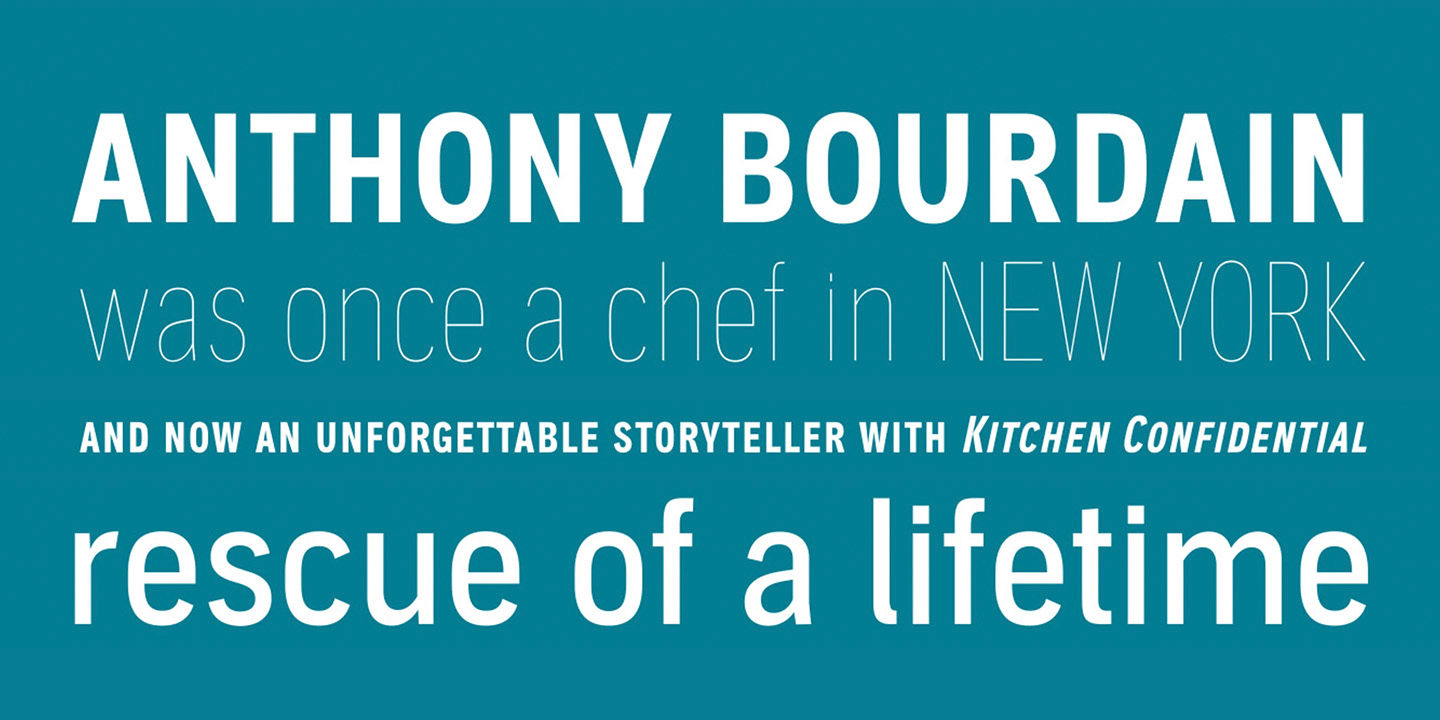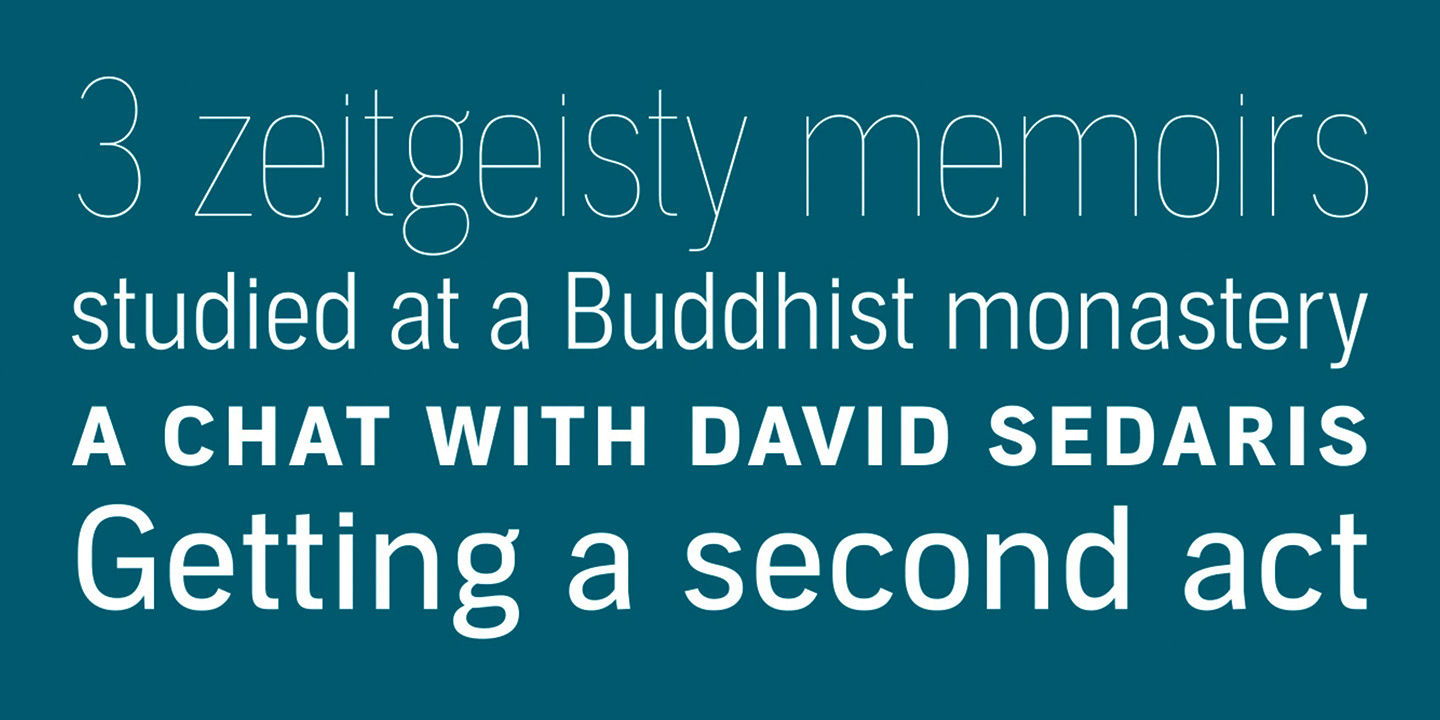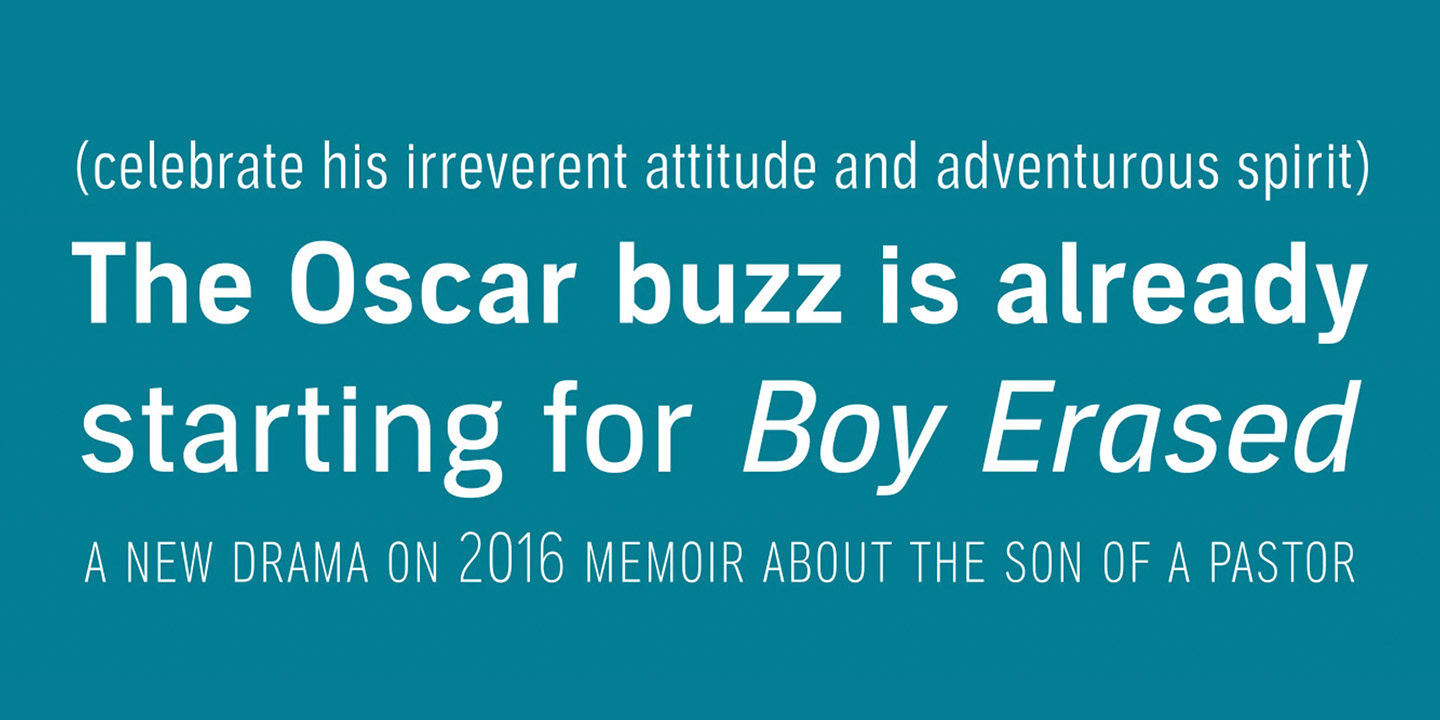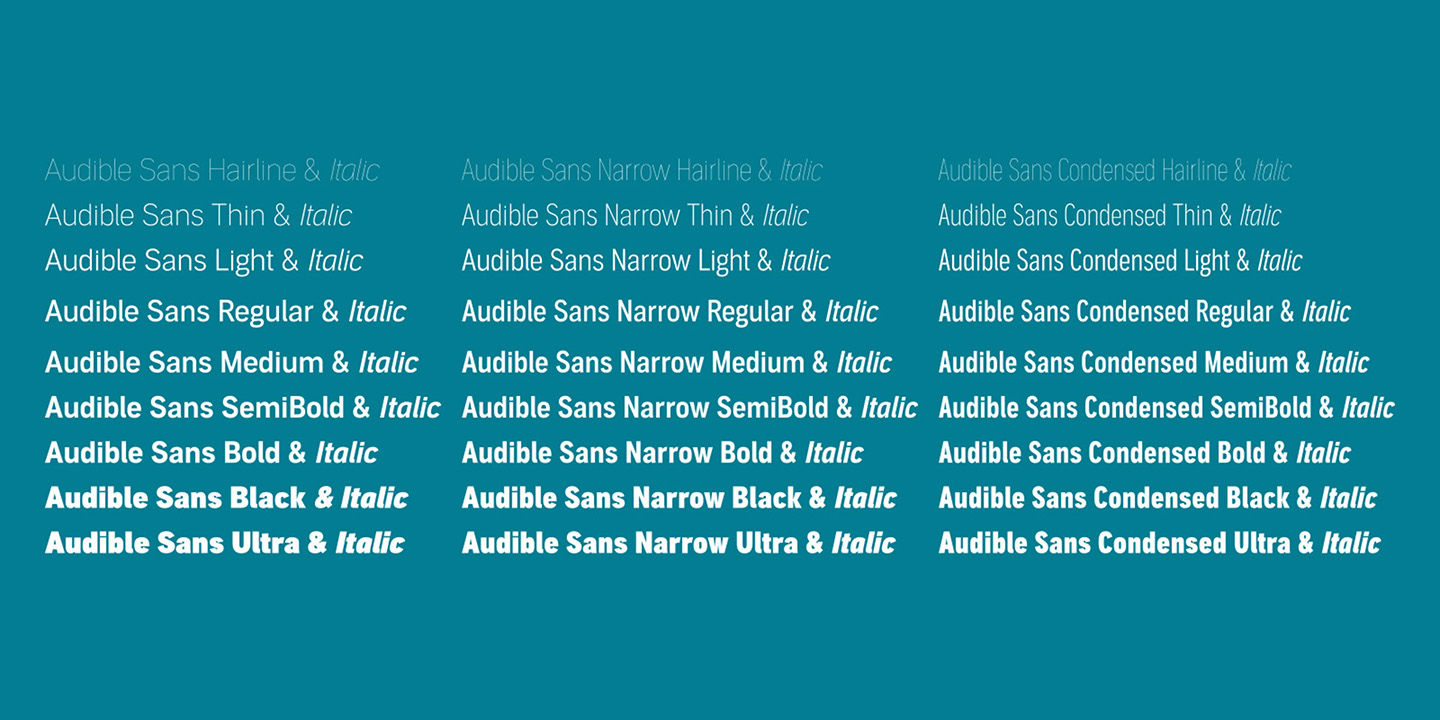
Audible Sans
CREATED
2015, 2016
CLIENT
Audible
Designer
Neil Summerour
Designed for Audible between 2015 and 2016, Audible Sans is a custom brand typeface system built specifically for the company's online and offline needs. The family was drawn from new skeletons developed for Audible's requirements, with the completed system spanning three widths (Standard, Narrow, and Condensed) and a full weight range from Hairline to Ultra with matching italics throughout. Web font subsets were produced for Audible's website, app, and digital product environments alongside the desktop fonts used for broader brand and marketing applications.